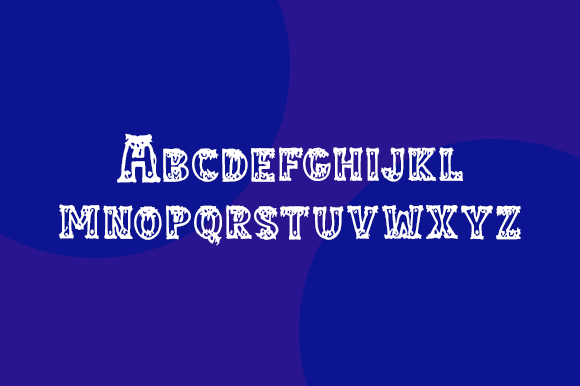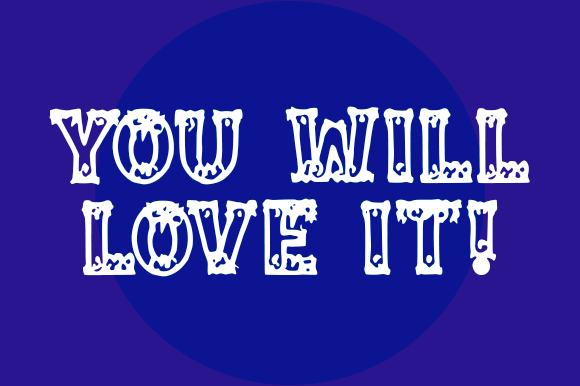
Hallo Hallo Font – Free Download
Introduction to Hallo Hallo Font
Hallo Hallo is a bold and quirky decorative font inspired by spooky fun and vintage circus vibes.
With its ornamental edges and playful personality, this typeface is perfect for Halloween designs, party invitations, posters, merchandise, and anything that needs a touch of whimsical mystery Hallo Hallo captures attention instantly and brings a unique, handcrafted charm to every letter.
Key Features of Hallo Hallo Font
Why Choose Hallo Hallo Font?